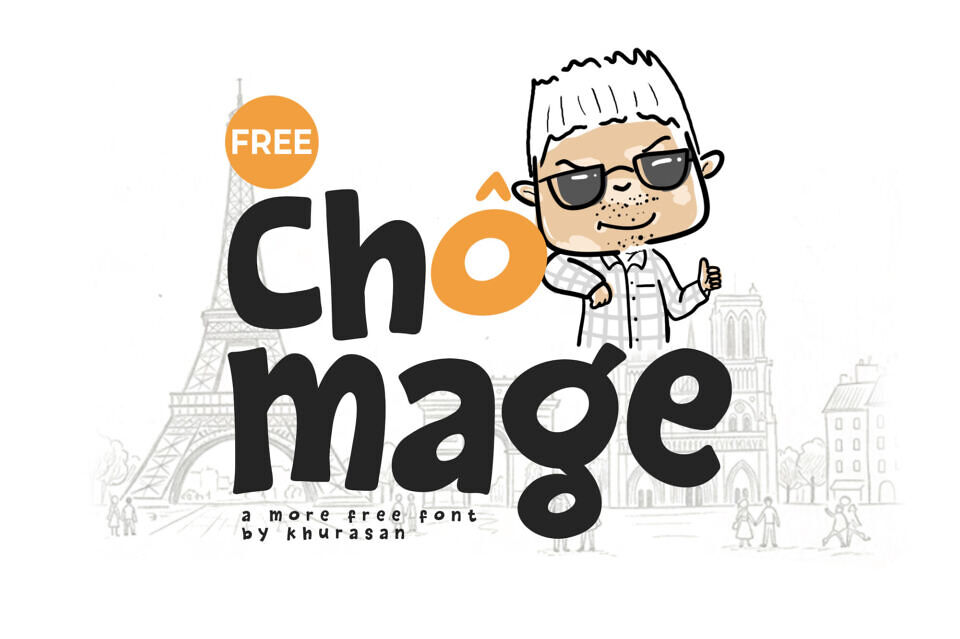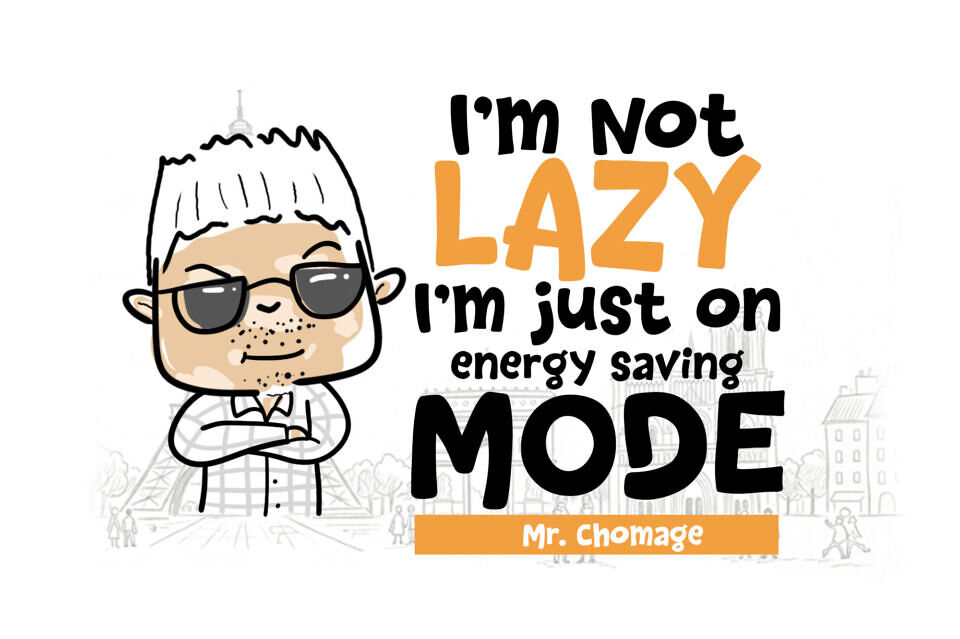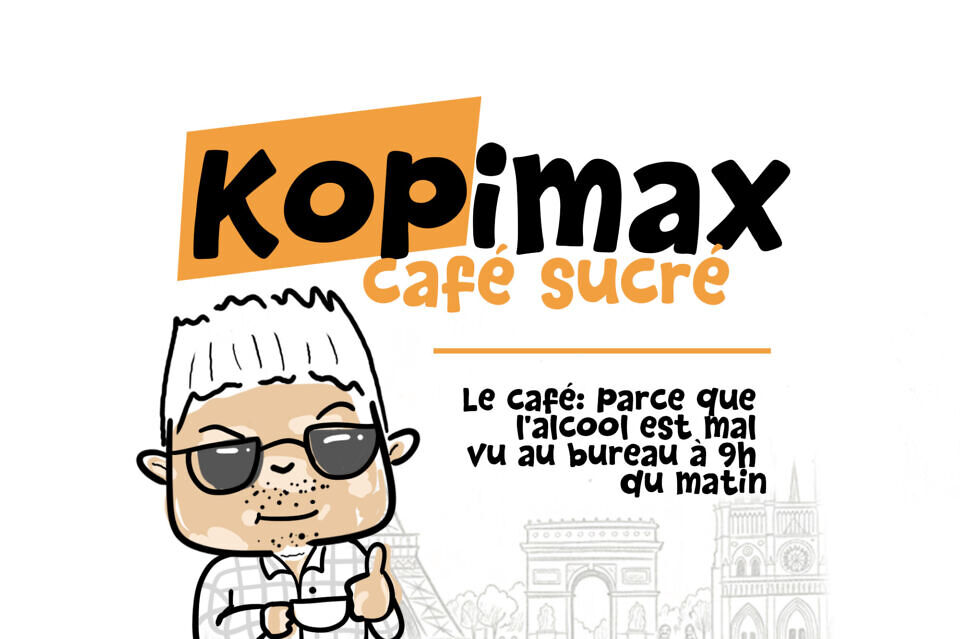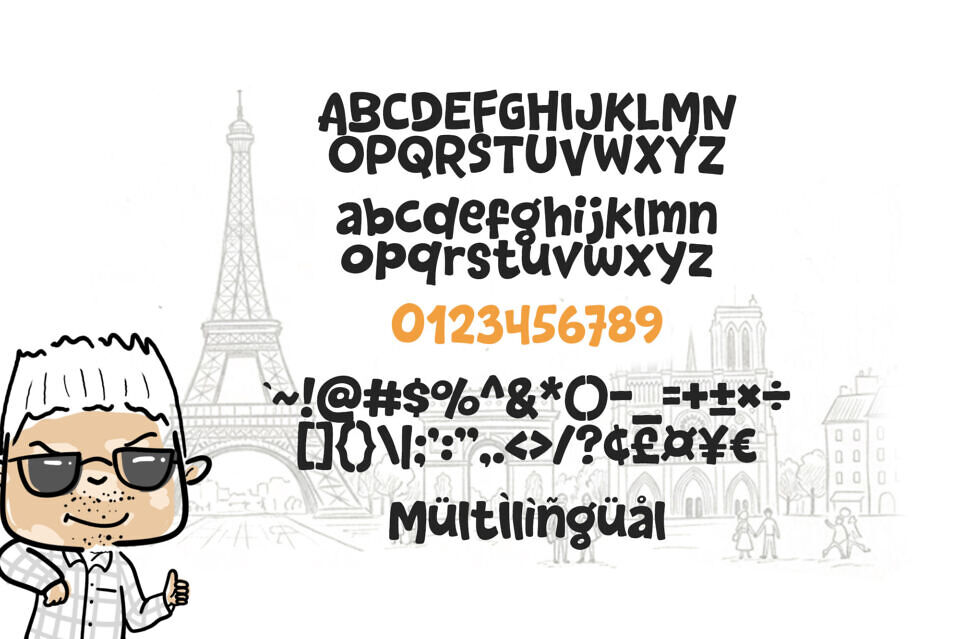
Chomage Font
Inject a sense of casual, hand-drawn personality into your work with Chômage, a delightfully thick and playful display font. This typeface features chunky, organic letterforms with soft, rounded edges and a rhythmic, slightly irregular baseline that mimics the spontaneous feel of a marker sketch.
Its bold visual weight and friendly, “bubbly” architecture make it an exceptional choice for editorial illustrations, comic book lettering, casual apparel branding, and high-energy social media content.